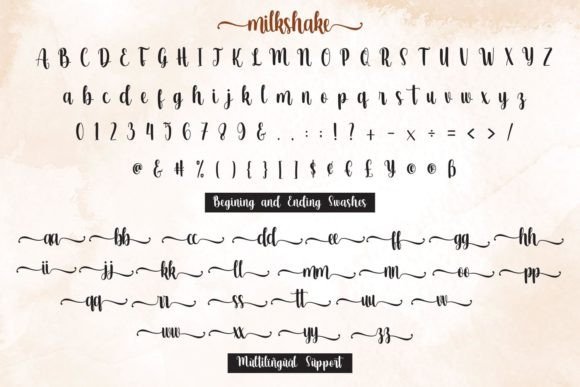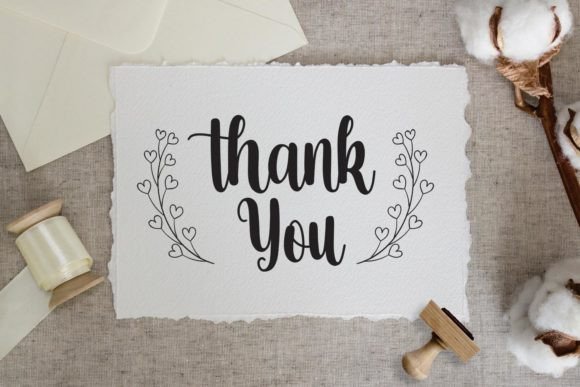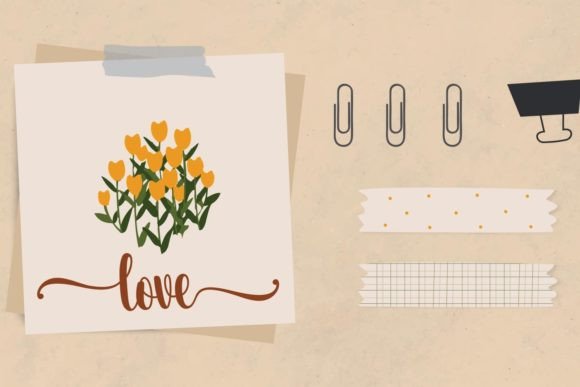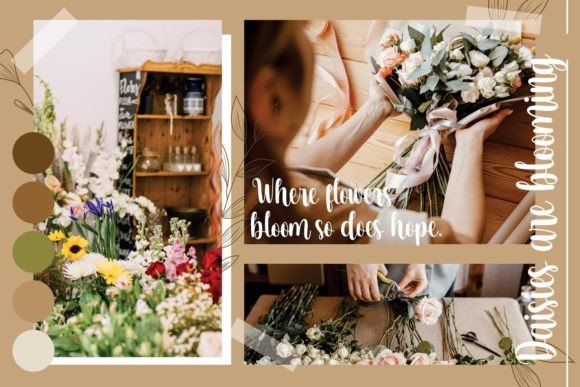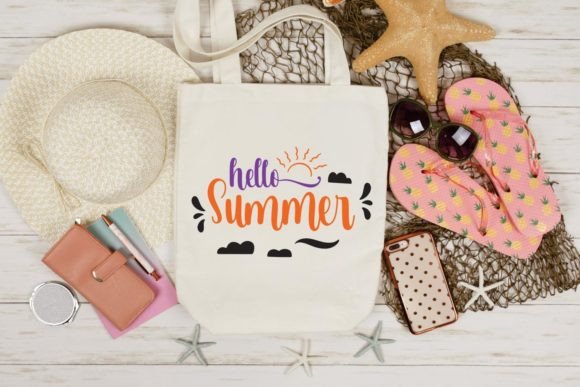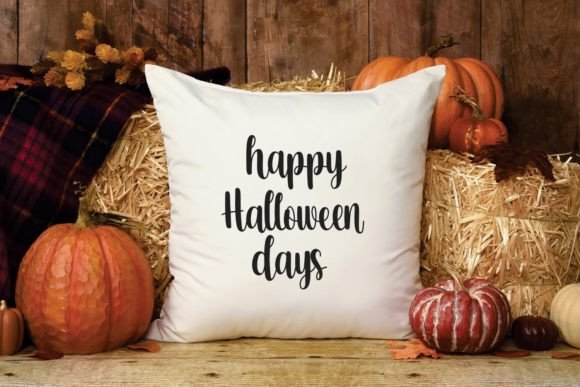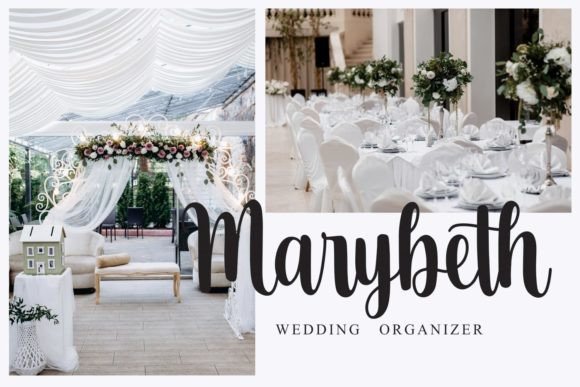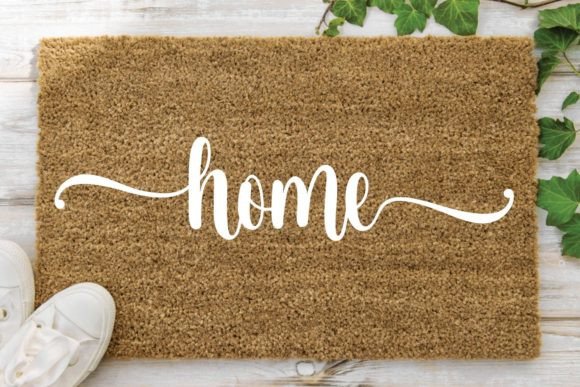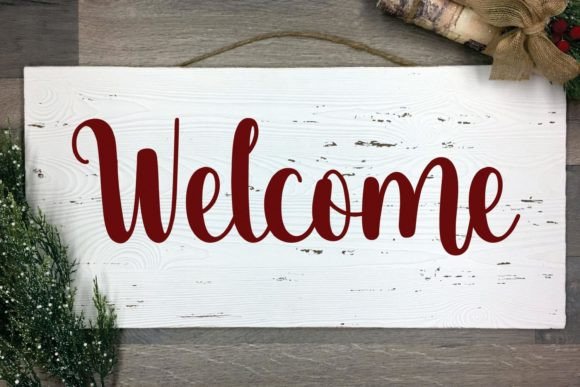
Milkshake Font
About Milkshake Font
Introducing Milkshake, a script handwritten font that brings a quirky and natural hand-drawn style to your creative projects. This versatile font is well-suited for various applications, making it ideal for crafting, branding, wedding invitations, blogs, logos, home decor, business materials, book covers, stationery, marketing, magazines, and more.
Milkshake’s unique and quirky style adds a personalized and distinctive touch to your text, making it a charming choice for projects where a handcrafted feel is desired. Whether you’re creating a logo, designing wedding invitations, or crafting a beautiful frame for your home, Milkshake is crafted to bring a sense of warmth and creativity to your designs.
The versatility of Milkshake allows it to adapt seamlessly to different design contexts. Its natural hand-drawn aesthetic can be used for various crafting projects, and its quirky style makes it suitable for both casual and professional applications.
Imagine using Milkshake to create a unique and personalized logo, designing wedding invitations that stand out, or adding a handmade touch to your blog and social media graphics. Whether used digitally or in print, Milkshake is designed to be an incredibly versatile font that allows you to create spectacular and personalized designs.
In essence, Milkshake is more than just a font; it’s a creative tool that brings a quirky and natural handwritten flair to your designs. Let it be the personalized and distinctive element that elevates your crafting, branding, and various creative projects, making them uniquely charming and spectacular.